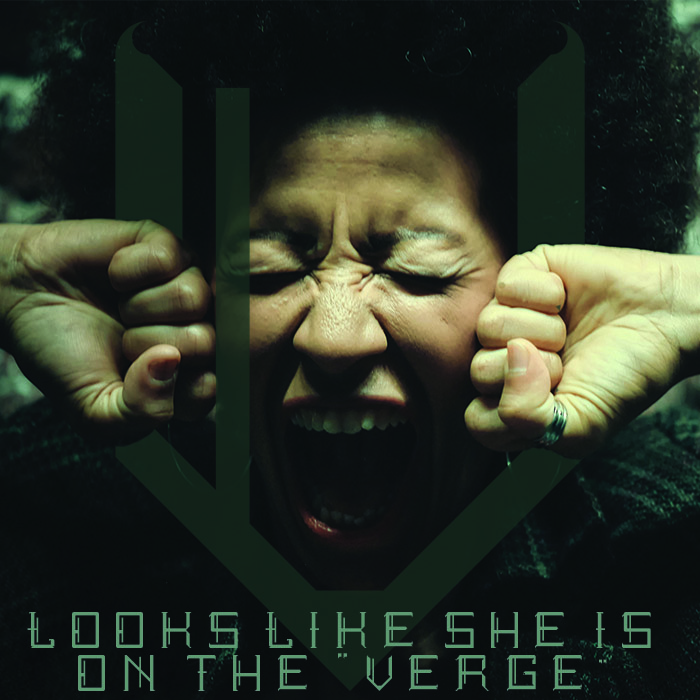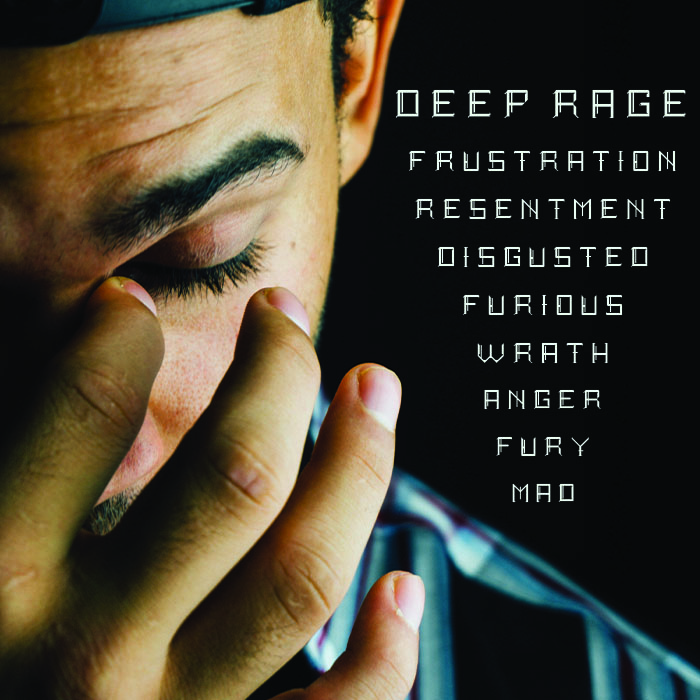
• What is more fun than showing your rage though a font! Introducing Deep Rage! Co worker steals your lunch? Use deep rage to send the message! Mother in Law got you stress out because she wants you to stop playing video games, stick it to the old woman and type this font up! Deep Rage is the font that gets the job done!